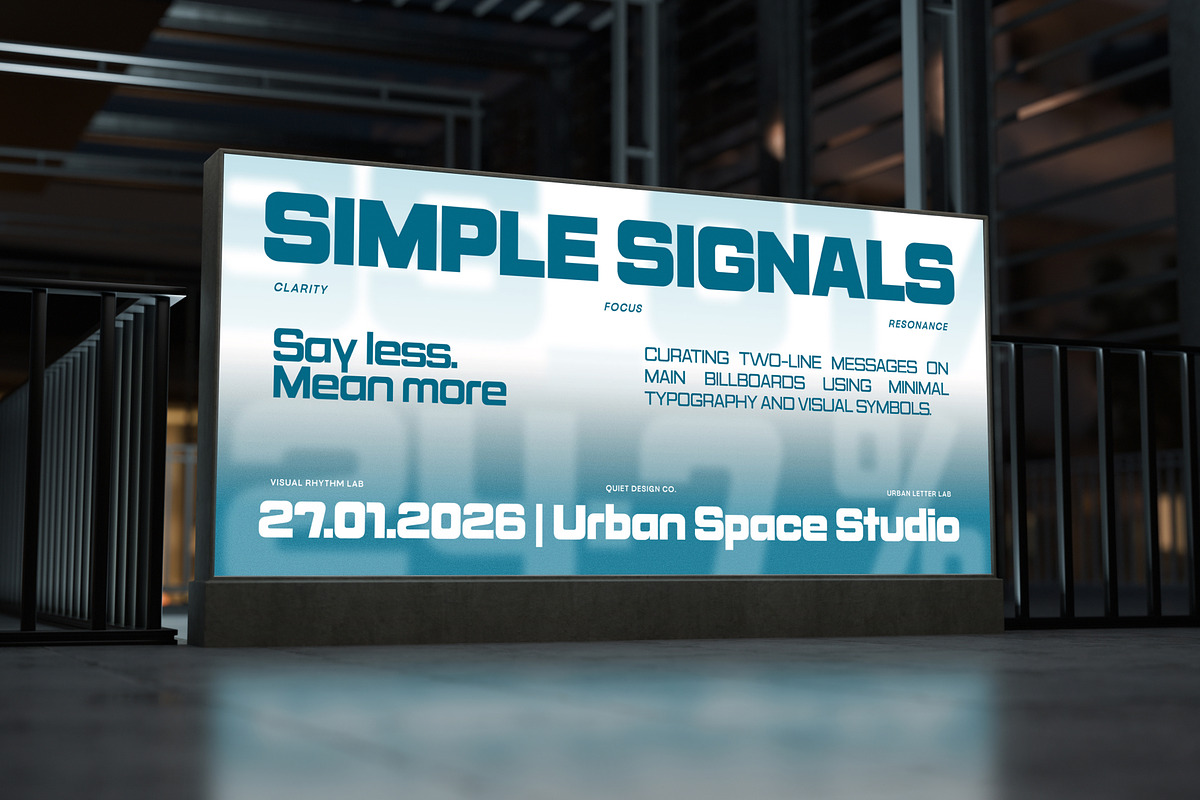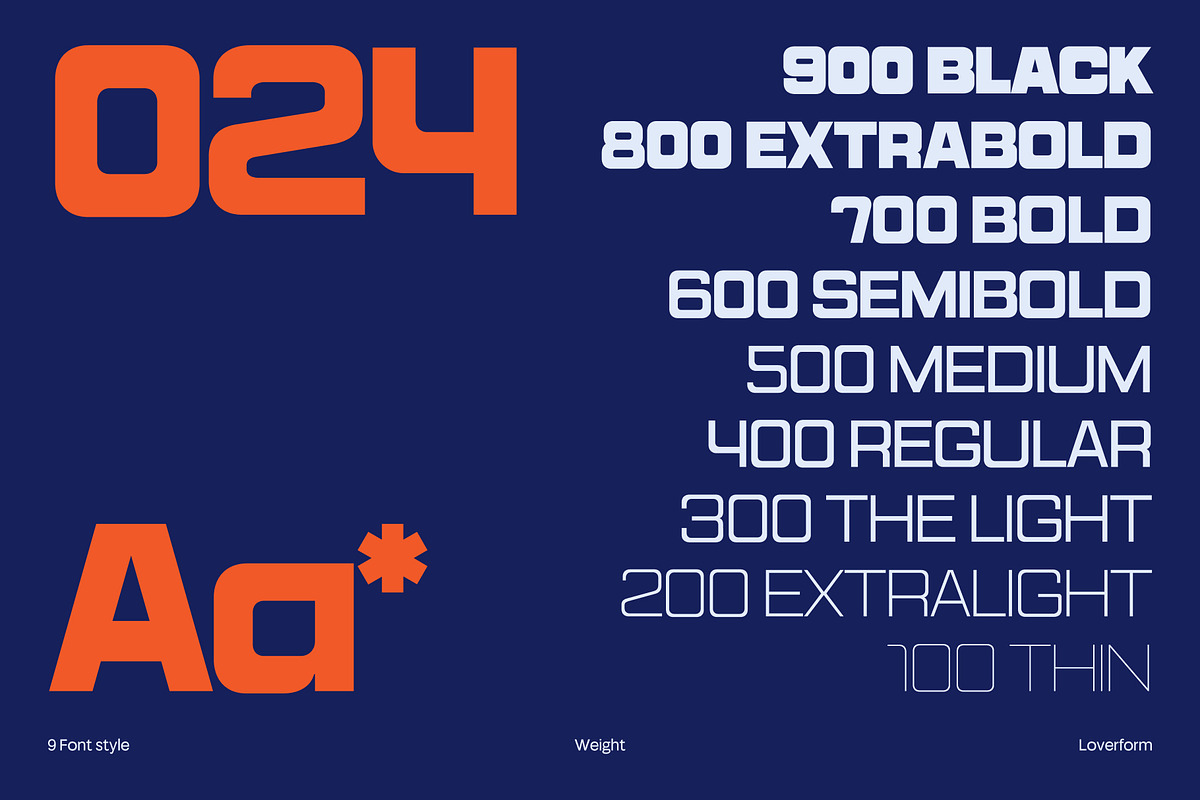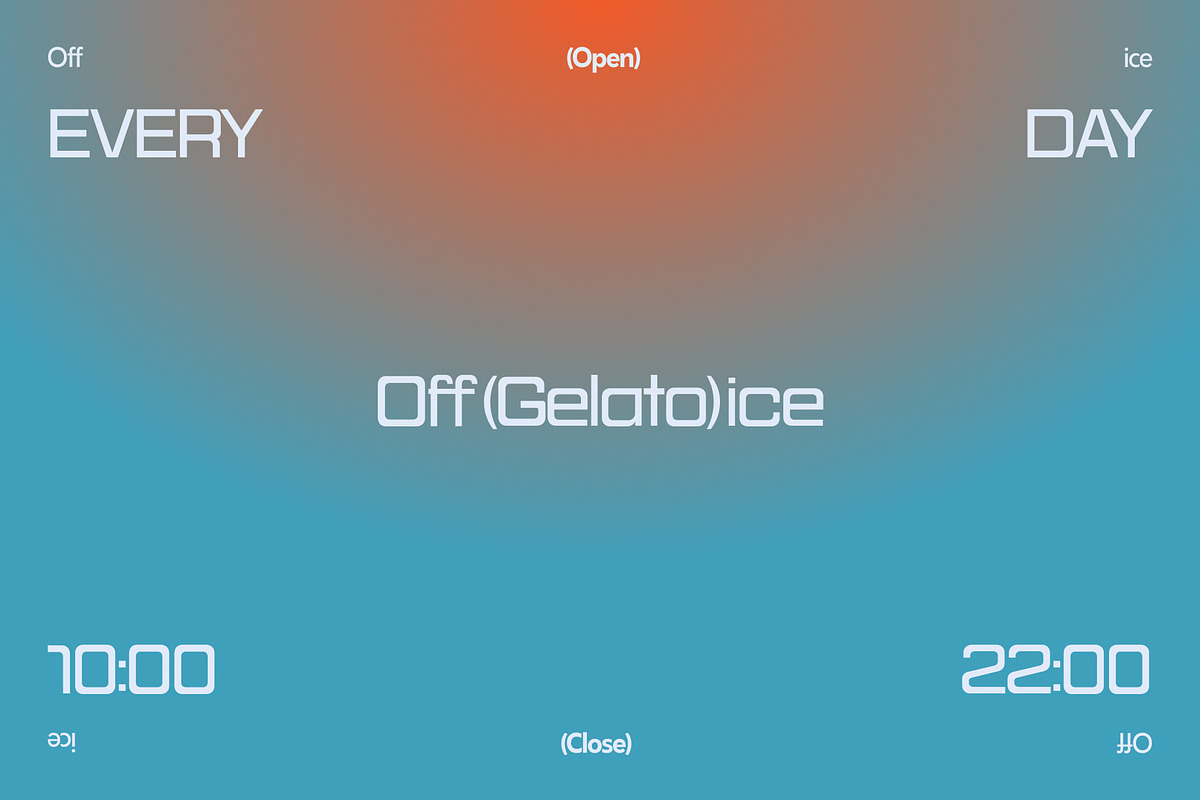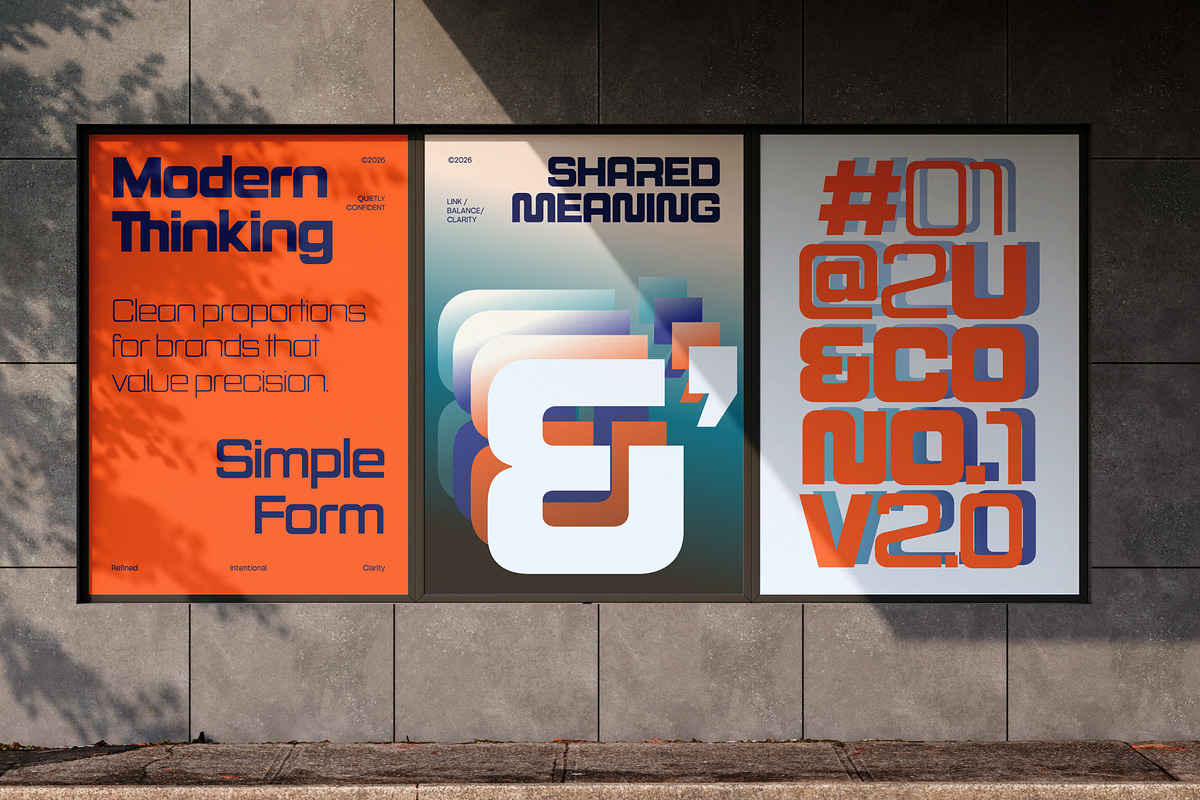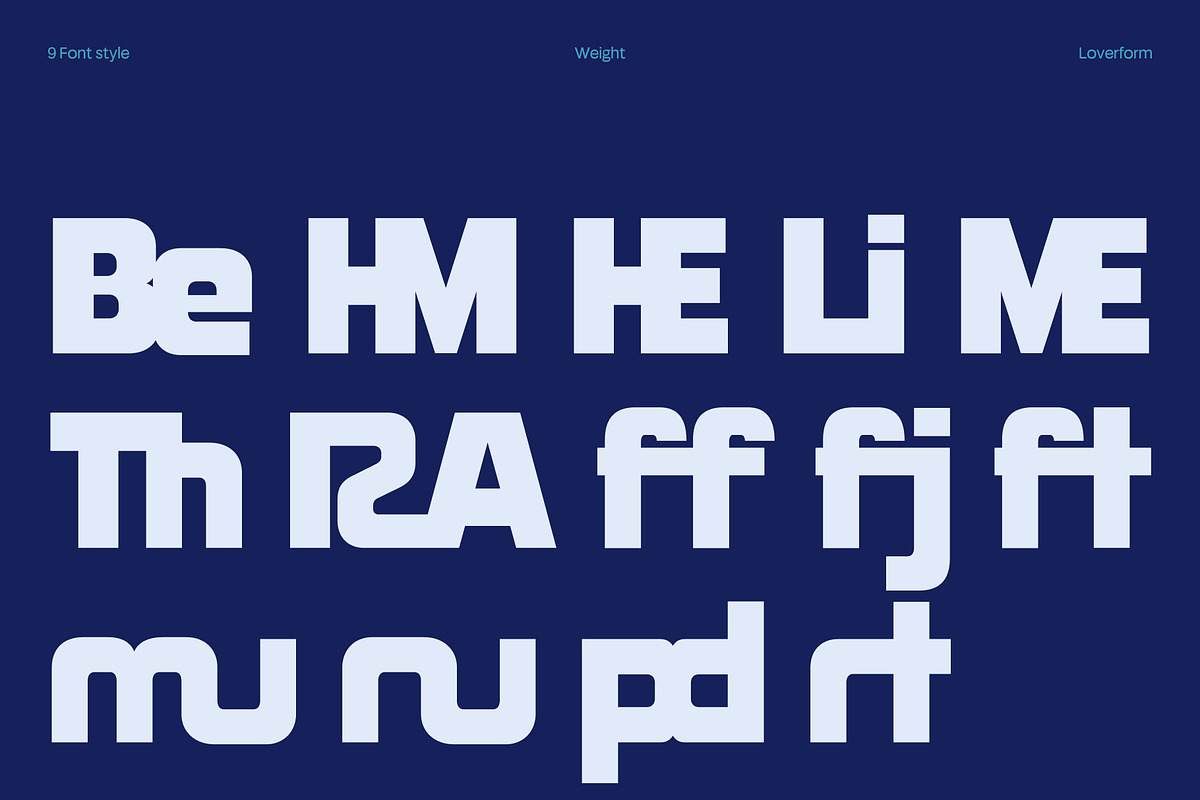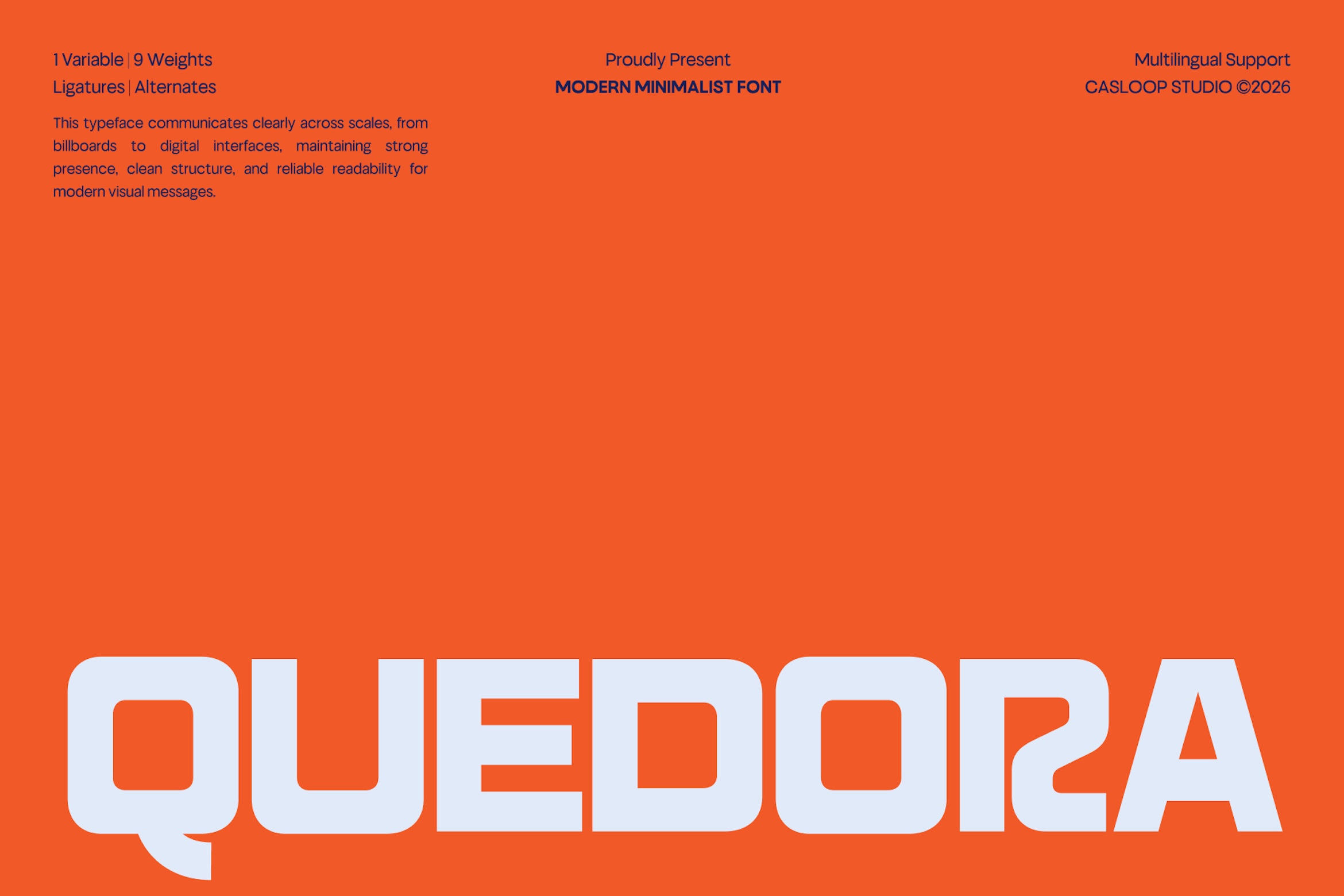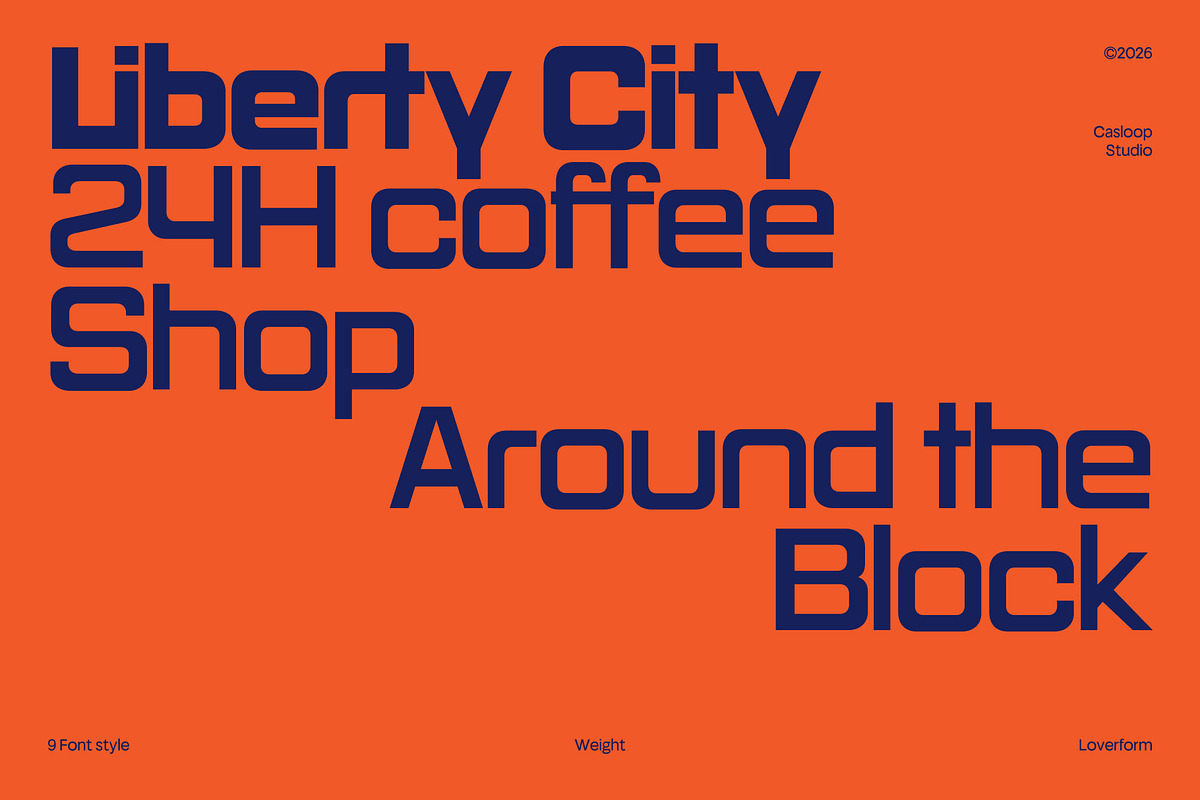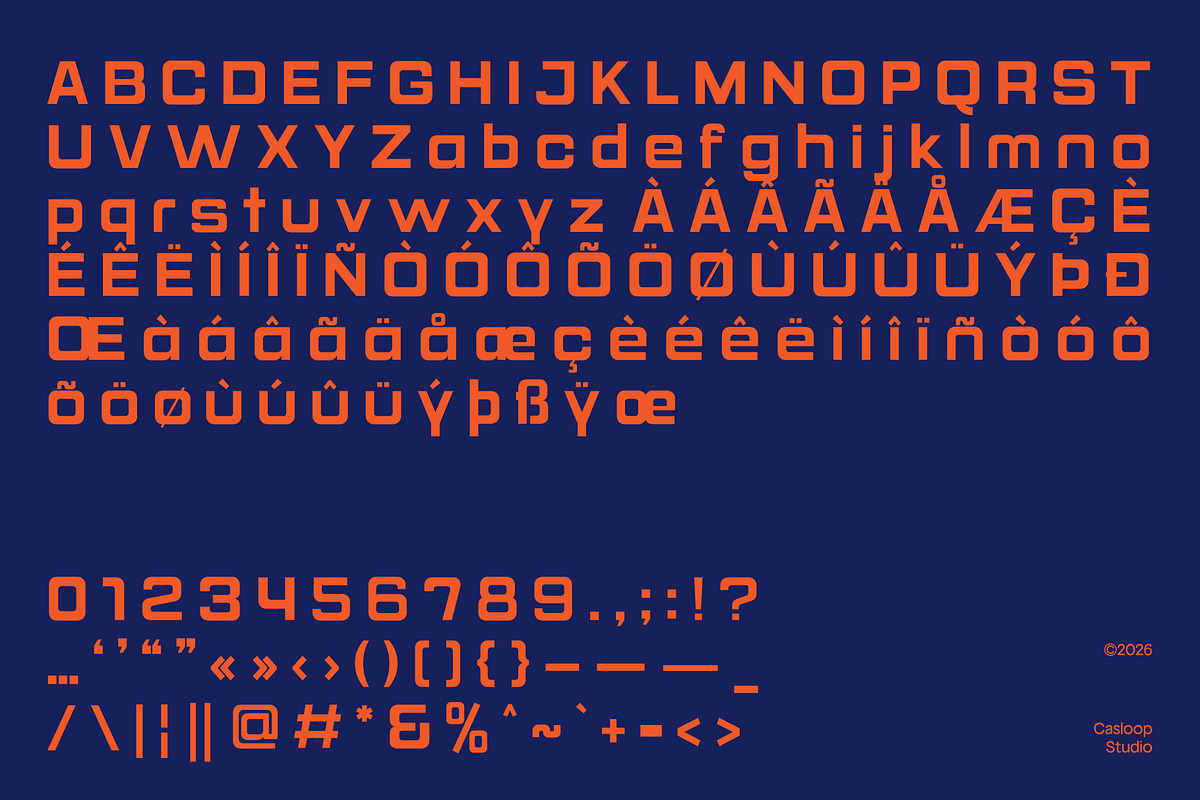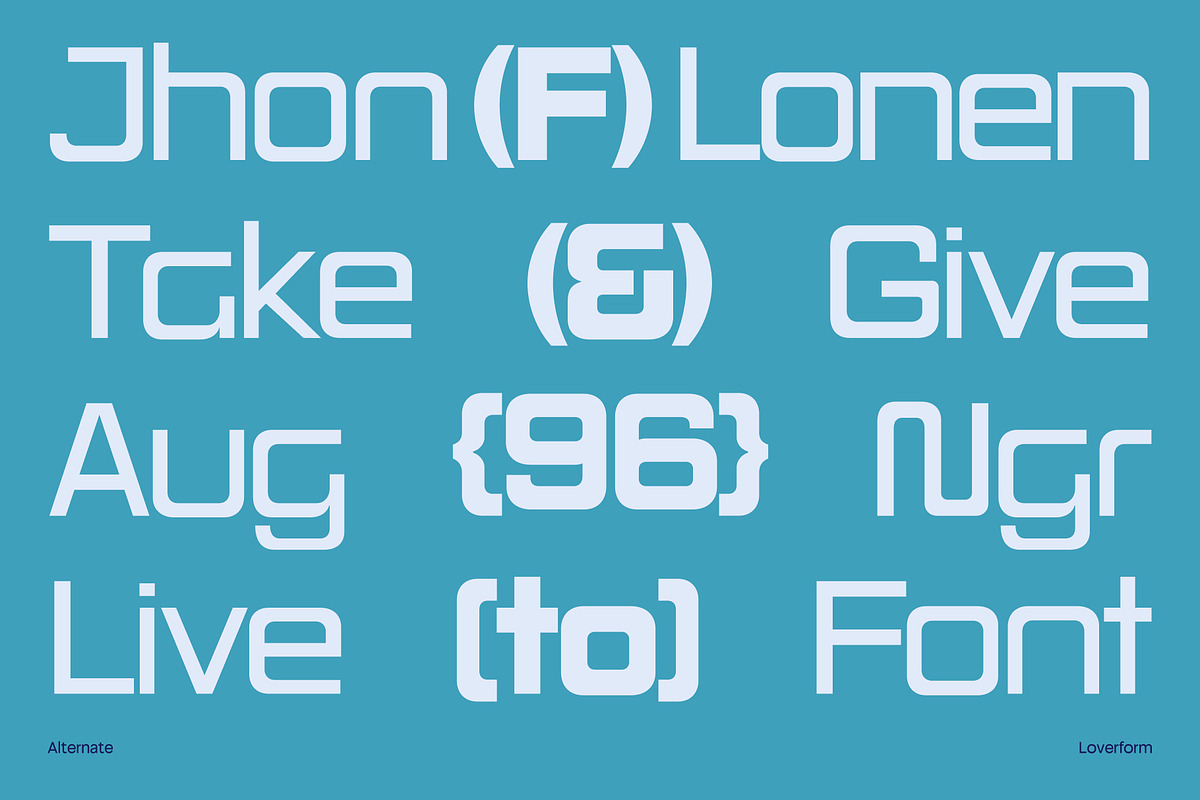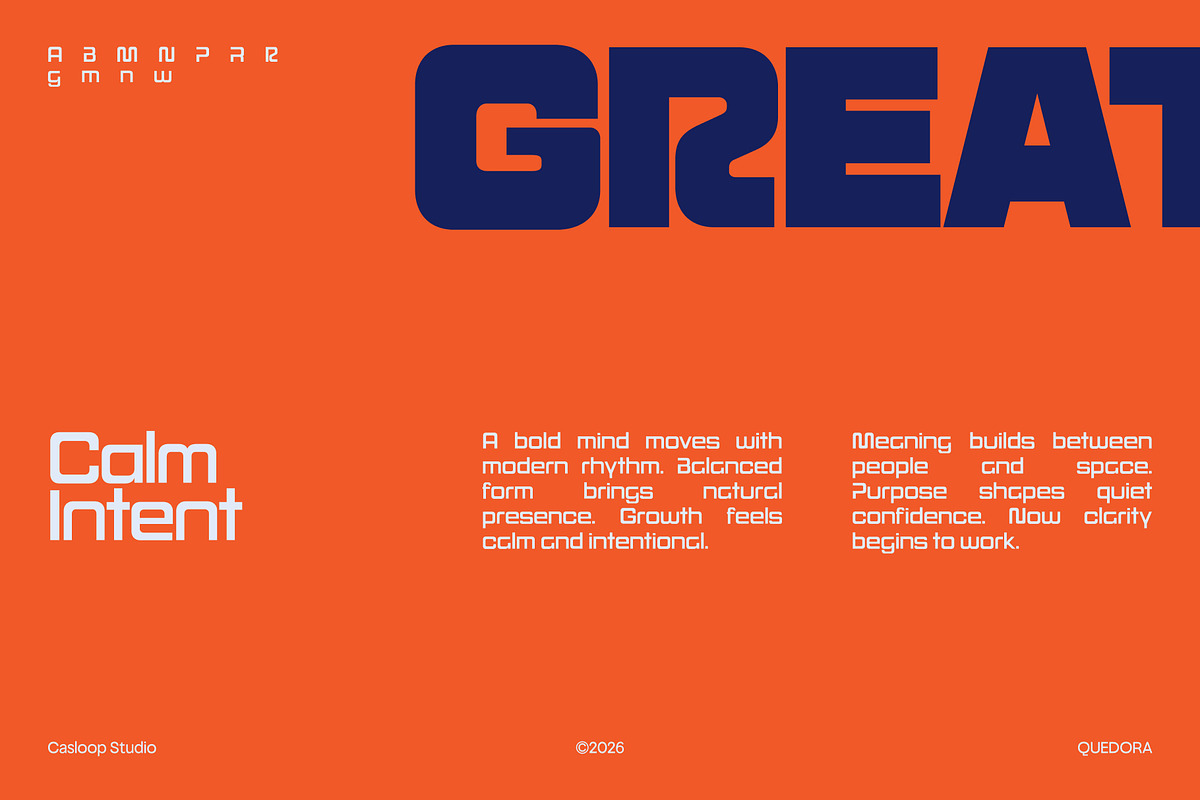
Quedora – Boxy Minimalist Font
Quedora is a modern minimalist font defined by clean internal cuts, open counters, and controlled curves, creating a clear, balanced, and confident visual voice. Designed with a flexible Thin to Black weight range and distinctive characters such as Q, R, A, W, M, and G, Quedora performs effortlessly across refined wordmarks, modern interfaces, and bold display headlines. It works as a reliable type system for brands that value clarity, precision, and quiet confidence.
And recommended pairing with: Inter, DSpace Grotesk, IBM Plex Sans, Acumin, Work, Neue Haas Grotesk.
- Ligatures & Stylistic Alternates Characters
- Multilingual : Bosnian, Catalan, Czech, Danish, German, English, Spanish, Estonian, Finnish, French, Irish, Croatian, Hungarian, Icelandic, Italian, Lithuanian, Latvian, Dutch, Norwegian, Polish, Portuguese, Romanian, Slovak, Slovenian, Albanian, Swedish, Turkish.